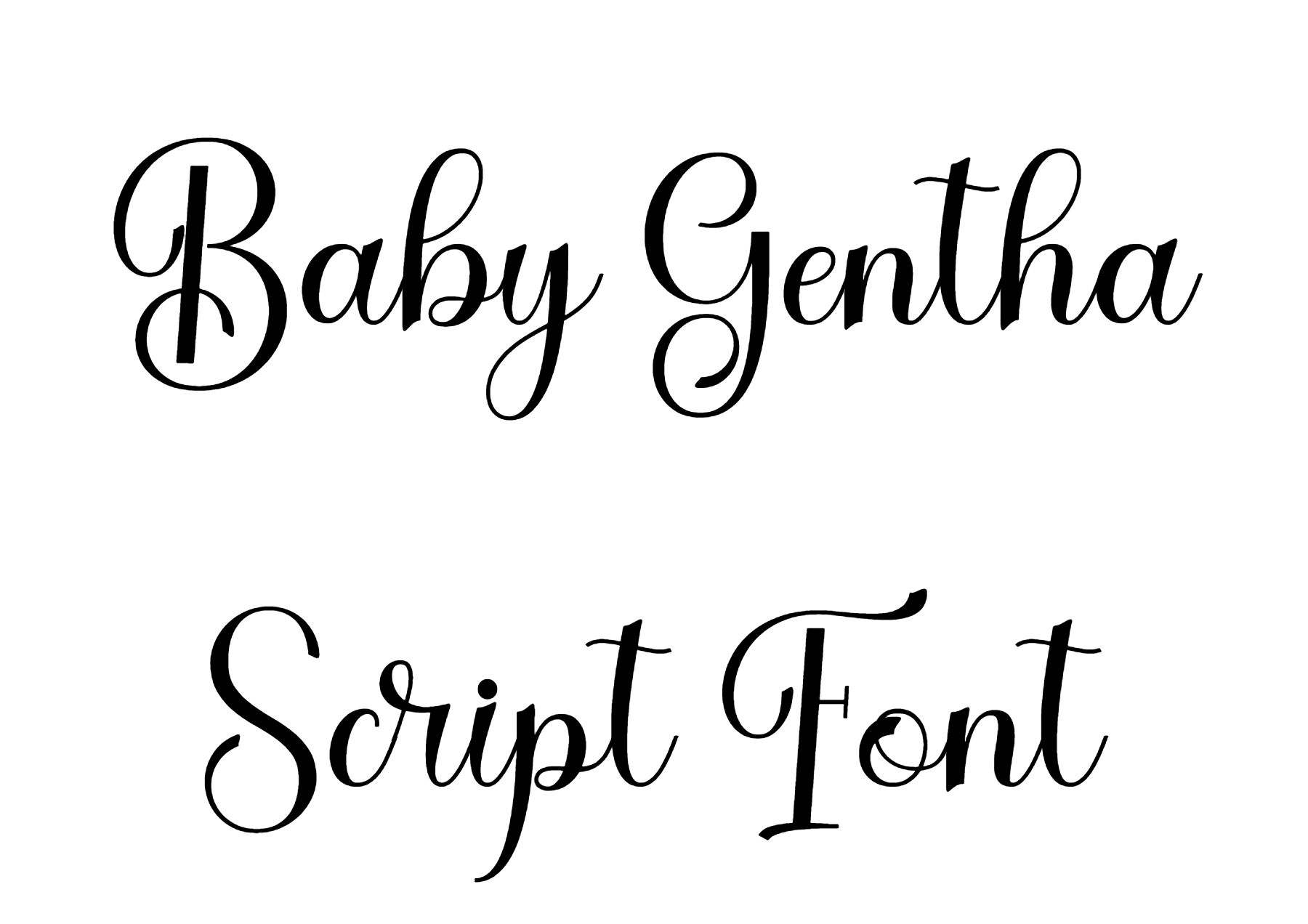
Nurul Kamal designed Baby Gentha, a cute and romantic calligraphy typeface, and released it through his foundry, NK Studio, in 2021. The font features a playful rhythm with bouncy characters that dance elegantly along the baseline.
Baby Gentha Script
Baby Gentha Script is a calligraphy font created by Nurul Kamal and released through Nk Studio (2020).
- Designer: Nurul Kamal
- Publisher: Nk Studio